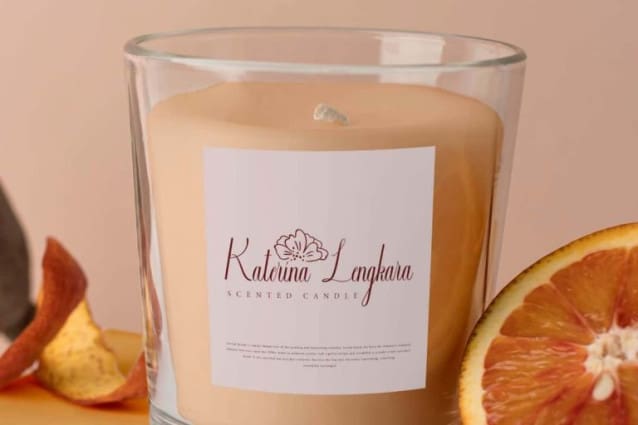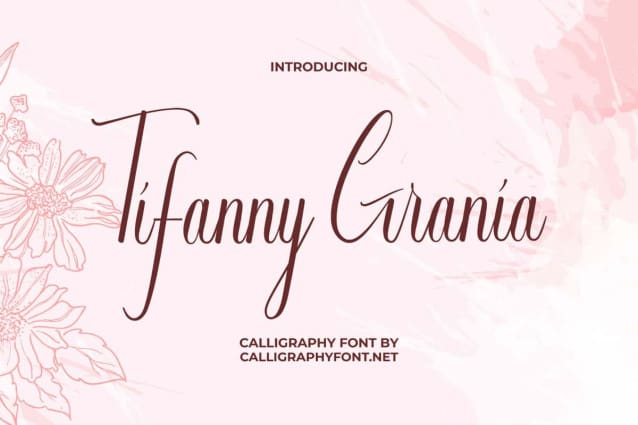
Tifanny Grania Font
Tifanny Grania Font is a classy calligraphy font with ligature alternatives and one of the most elegant fonts for luxury themes for personal touch to your designs. Authentic and organic handcrafted with a distinctive style, this font has been carefully designed to recreate natural writing. Each character is well-arranged and organized so it will be suitable for creating invitations, logos, labels, packaging designs, stationery, title, or an awesome combination of letters to place on the background. This font will be ready to help you!